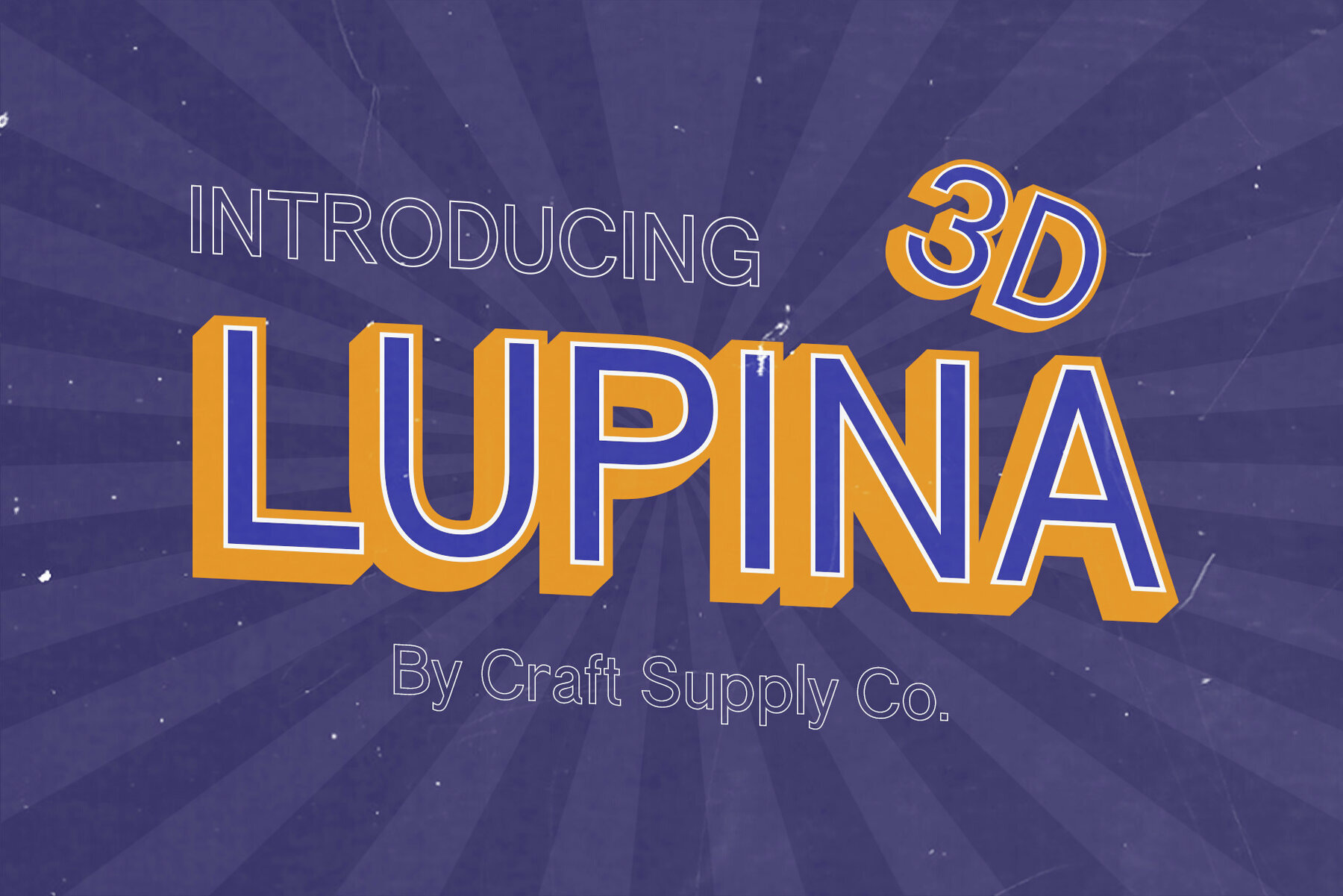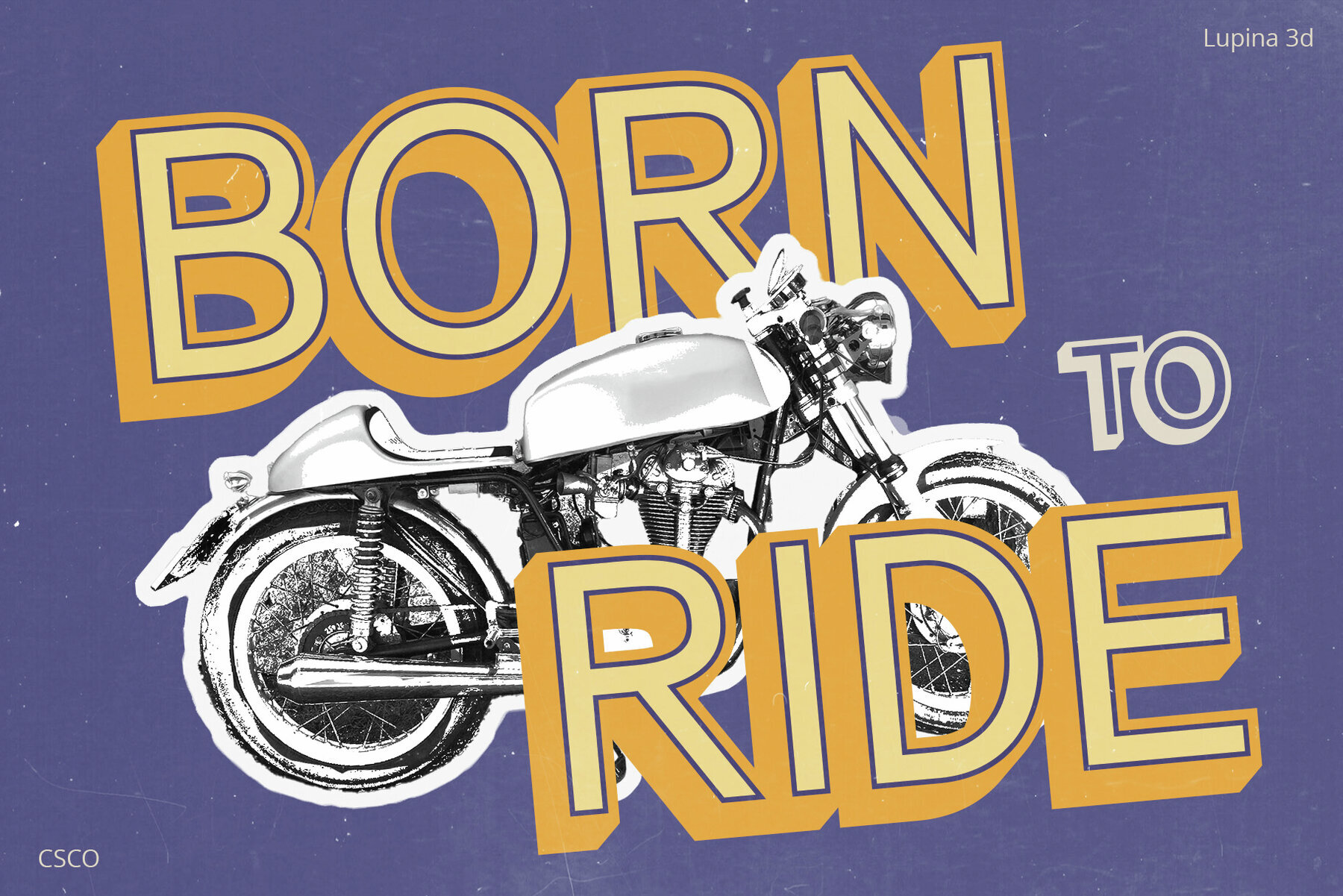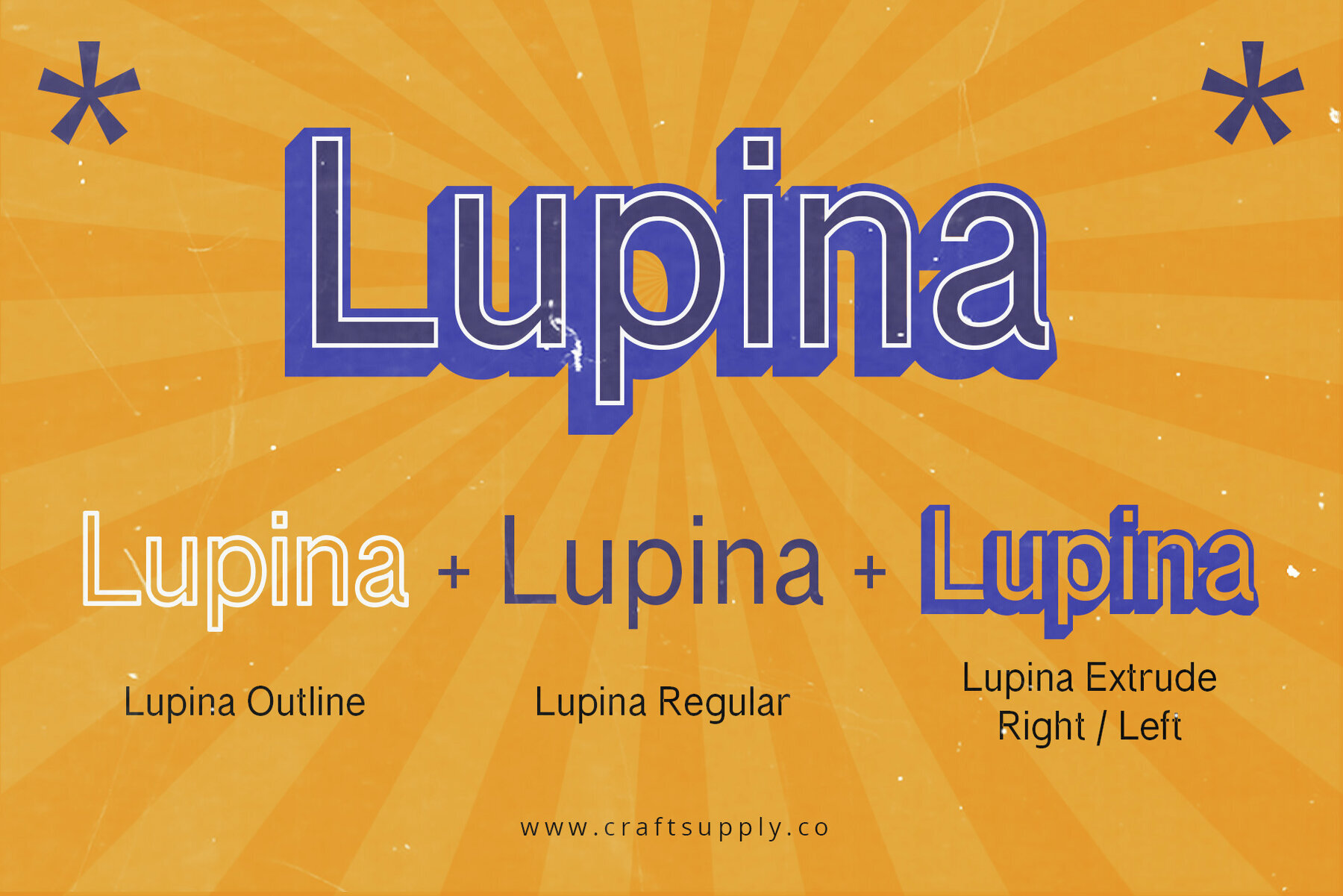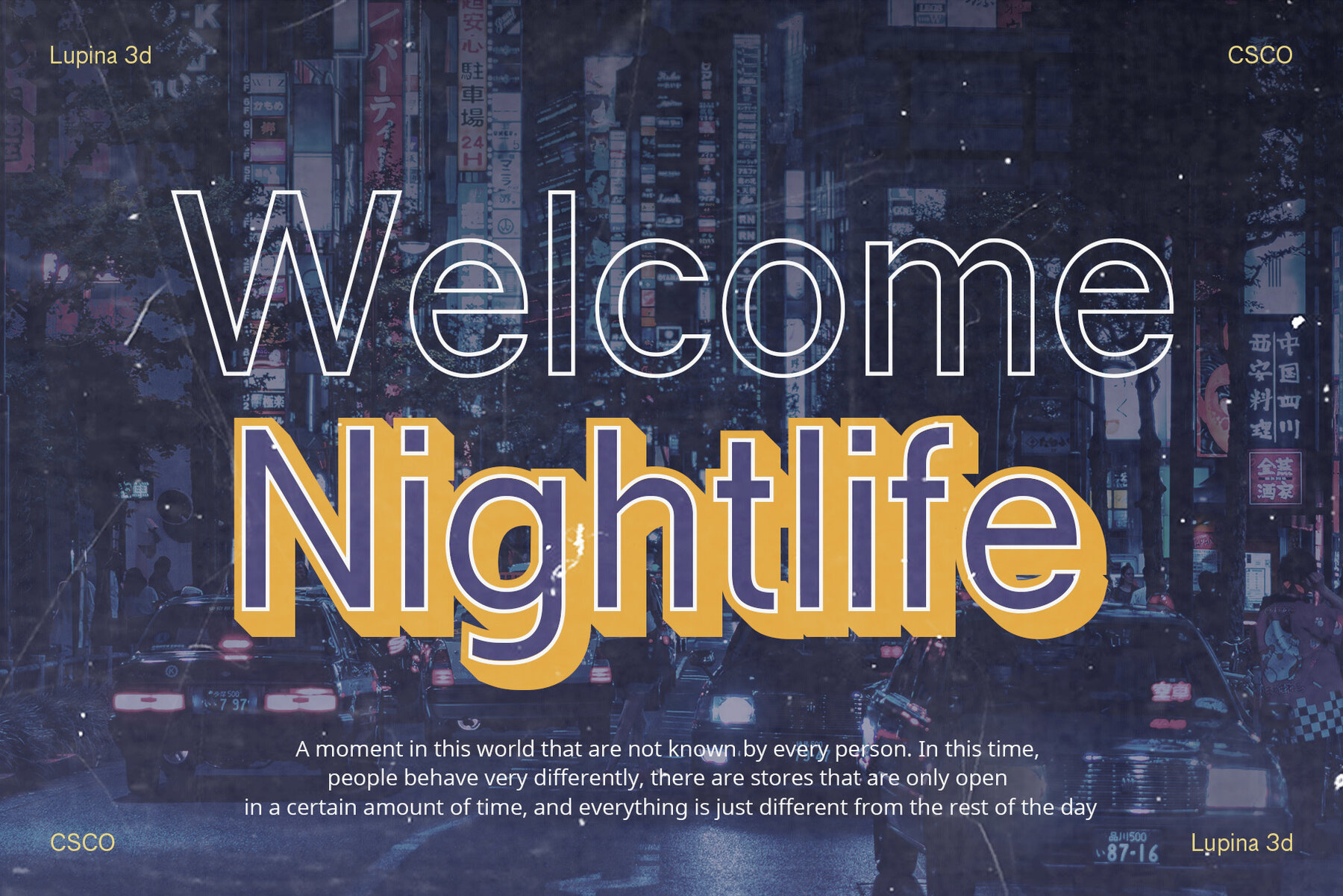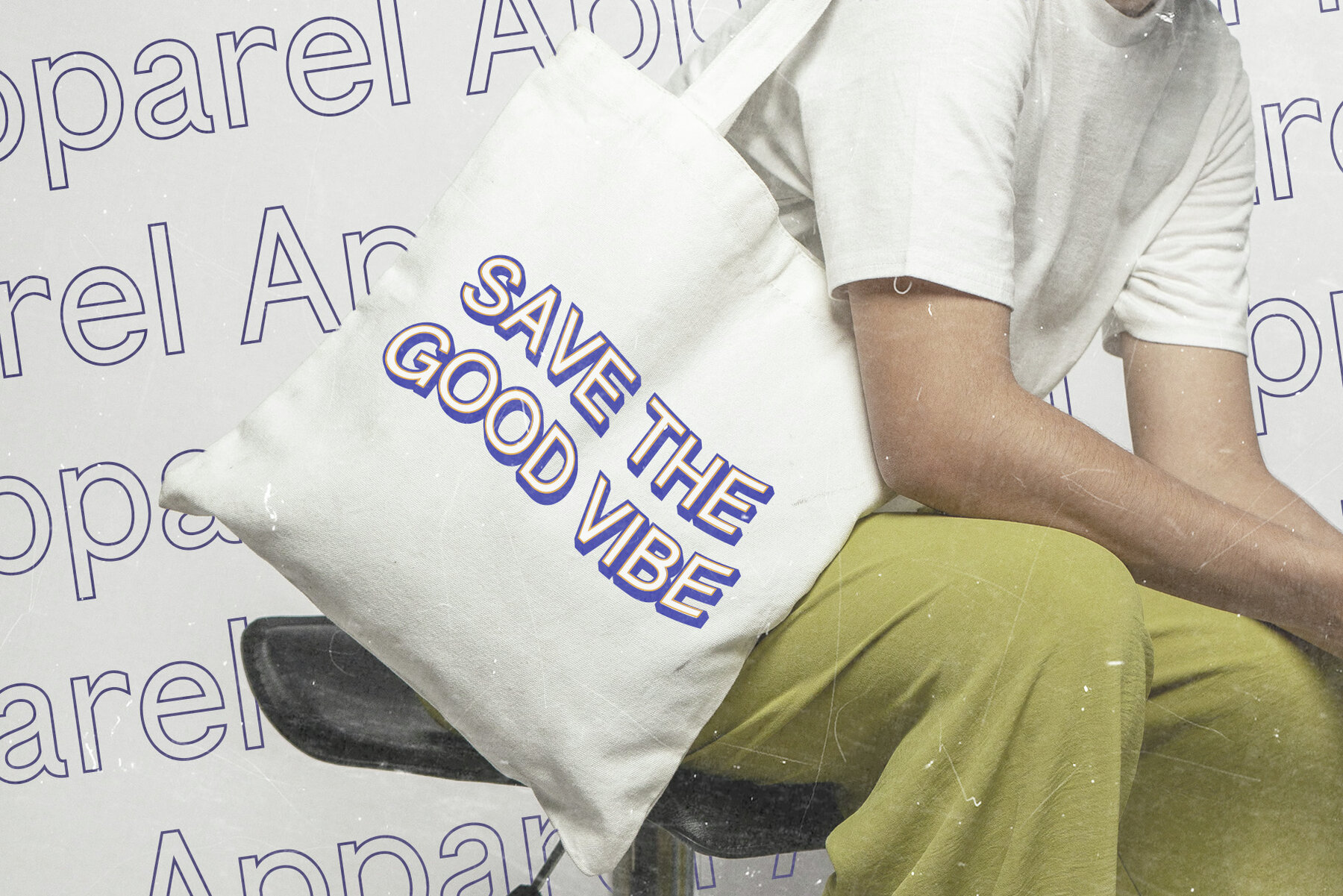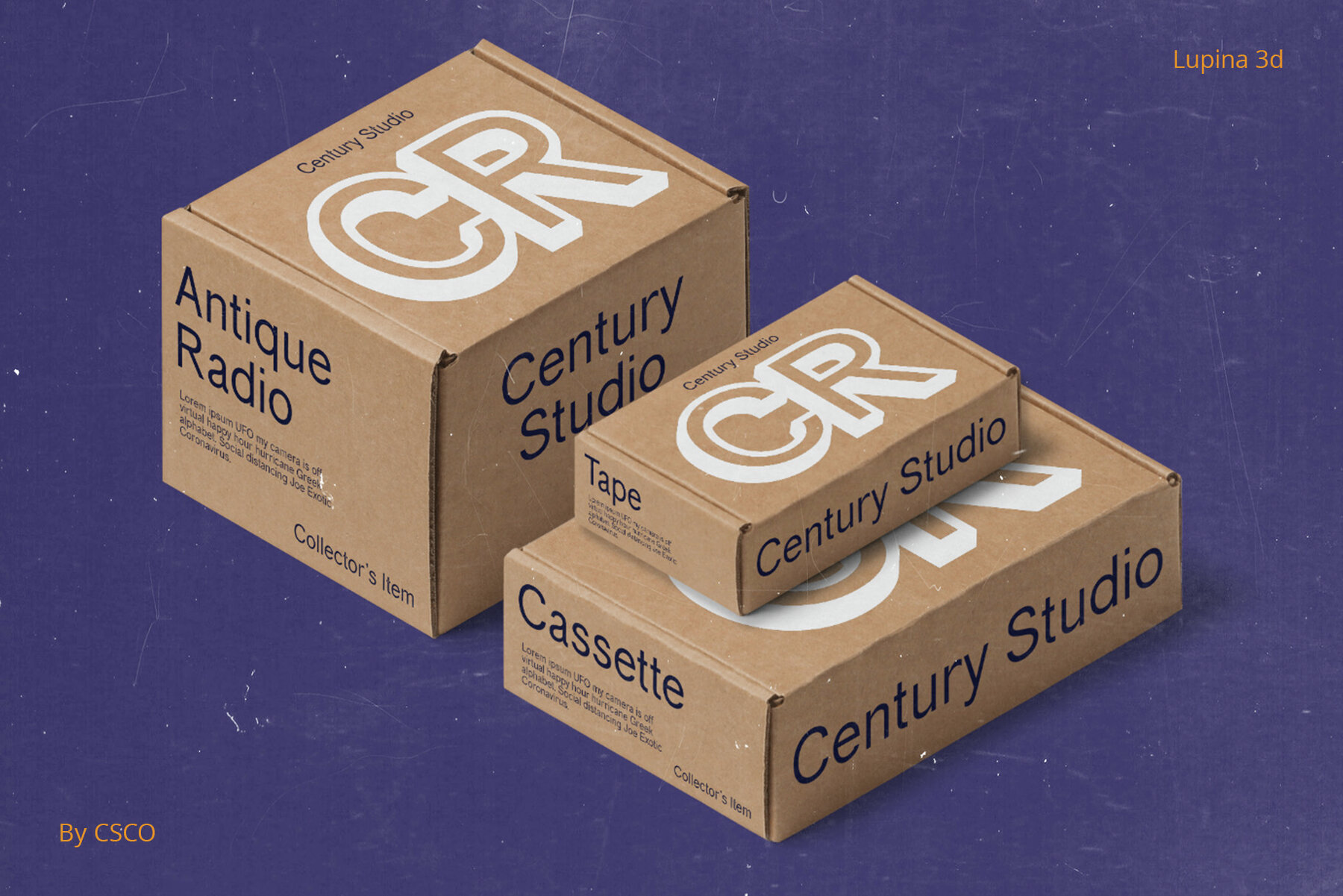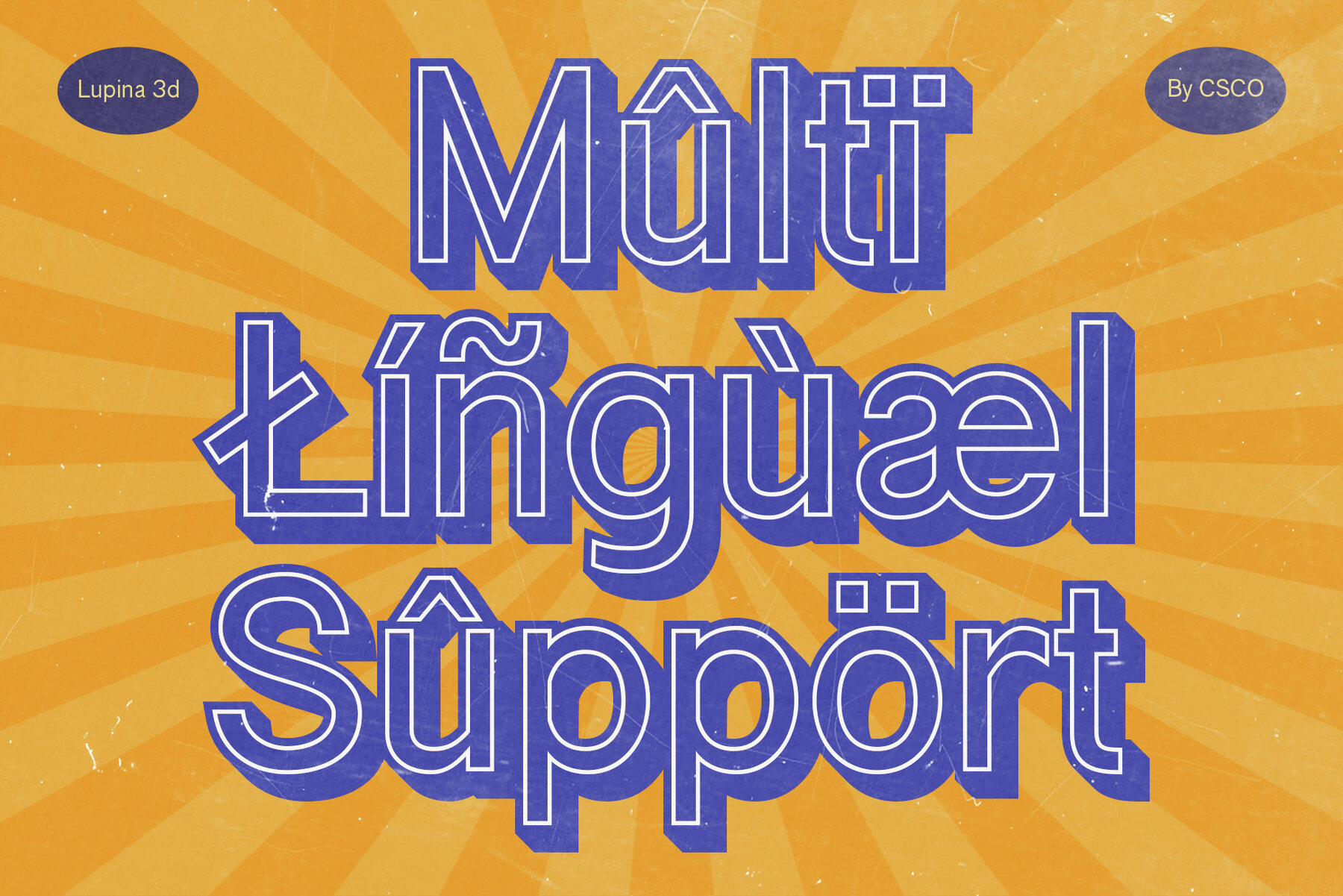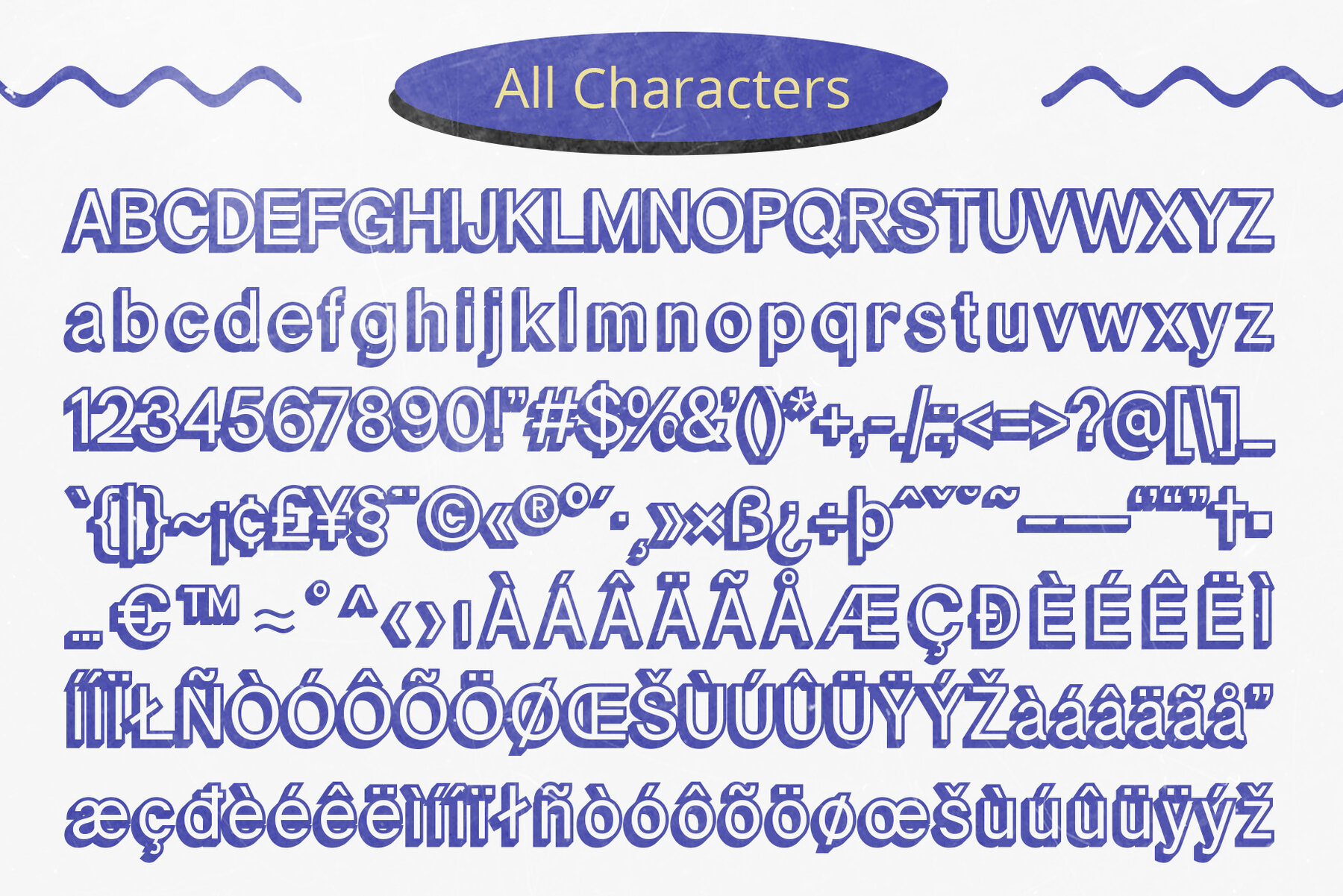
Lupina 3D Font
3D Font Lupina Visual Depth Lupina 3D, a sans serif font masterpiece, introduces a visual feast with its 3D effect, adding depth and dimension to each character. Extrude Elegance Experience the epitome of elegance as Lupina 3D employs an extrude effect, transforming flat letters into dynamic, three-dimensional elements that pop off the page. Striking Outline The font’s striking outline enhances legibility and ensures that each letter captivates attention. Lupina 3D is designed to make a bold statement in any design project. Versatility Unleashed Unleash the font’s versatility as it seamlessly integrates into various design contexts, from modern digital interfaces to eye-catching print materials. 3D Font Lupina stands as a testament to the power of three-dimensional typography, bringing innovation and style to your creative projects with an effortless blend of depth, elegance, and striking simplicity. From logo design to web graphics, Lupina 3D’s impactful applications are limitless. Elevate your projects with a font that transcends the boundaries of traditional typography, making a lasting impression on your audience. What you get : Features : You can use this typeface without needing any specialized software. If you have any inquiries or need assistance, please feel free to contact us. We appreciate your support in enhancing your creative projects! Best regards, Craft Supply Co.